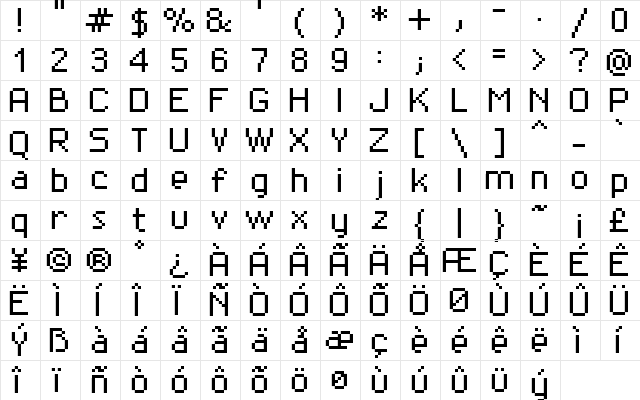
FFF Regates Regular
Design Context for FFF Regates Typeface
FFF Regates takes a measured approach to typography — its balanced proportions and neutral character make it a reliable workhorse for both digital and print work.